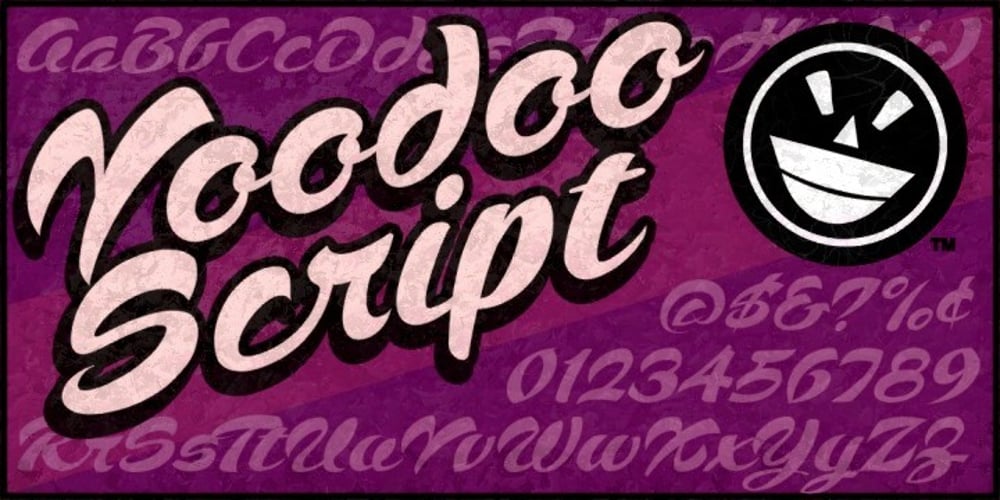
SCRIPT1 Voodoo Script
SCRIPT1 Voodoo Script font
SCRIPT1 Voodoo Script Font Family was designed by Michael Gene Adkins and published by The Fontry. SCRIPT1 Voodoo Script contains 3 styles and family package options. It’s time for a script font with magical appeal. Think island. Think orient. Or for some, the magic is real. It’s voodoo! Voodoo Script! The font with 14,000 kerned pairs and over 45 alternate characters and ligatures! It’s the script like no other–with options like no other! If you love dinking around in the non-keyable range (and I know you do) then you’ll be laying out your messages in fast order and perfect form with this face. Voodoo even comes with an “extras” set, the crown jewel of which are preset words, those prepositional layout-killers we all just wish would go away. You know the ones I’m talking about. It’s that word like “of” or “the” that shows up at the wrong time to play havoc with the real focus of your design. Seven of the worst offenders have been pre-assembled to perfectly complement your Voodoo layouts: The, the, and, from, for, of, to. You’ll also find distance fractions, accent marks for foreign characters, and a few other symbols that had to be left out of Voodoo proper to make room for those hidden goodies that will have you salivating all over your character map. But then Voodoo does tend to work its magic that way.